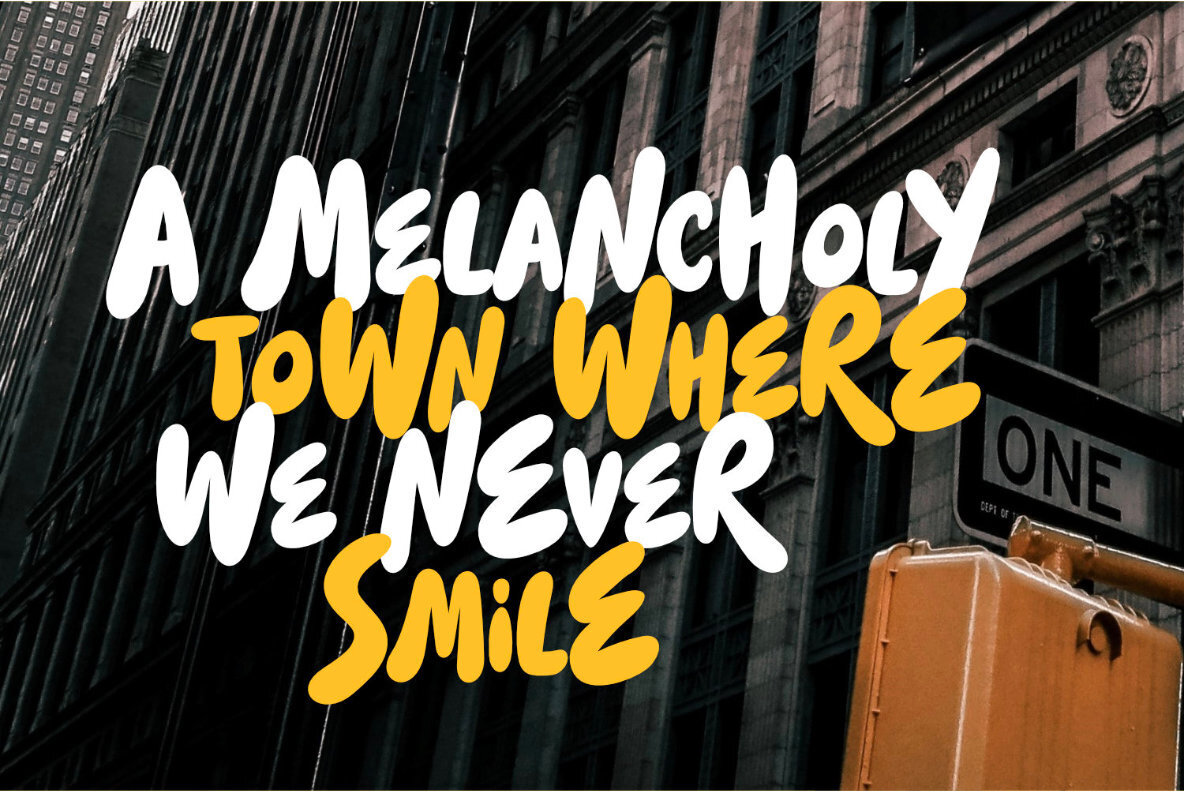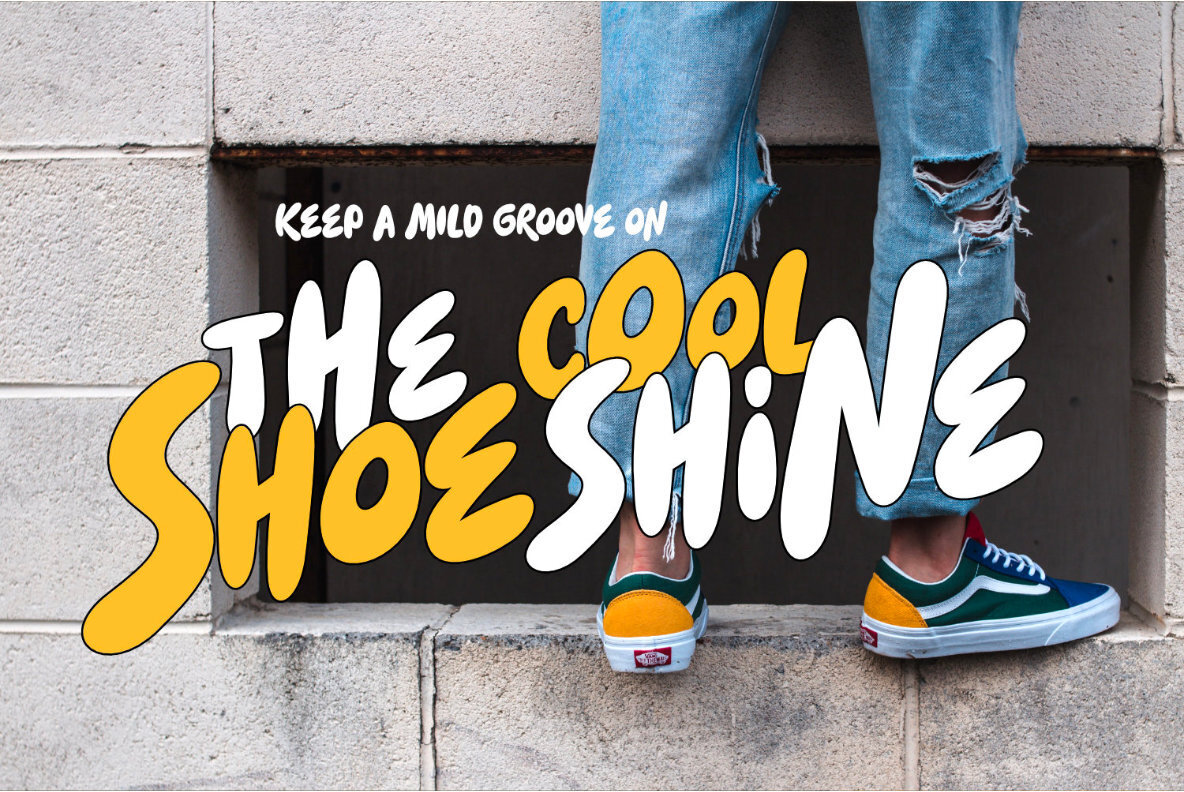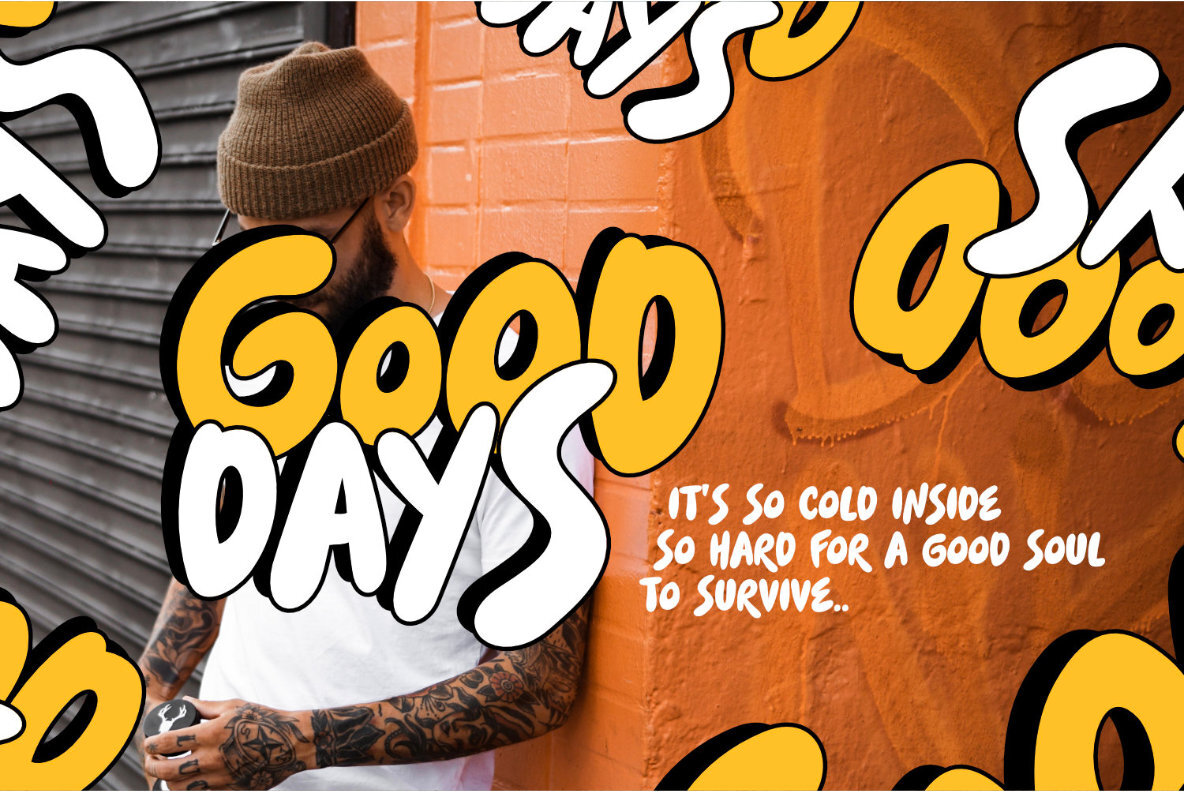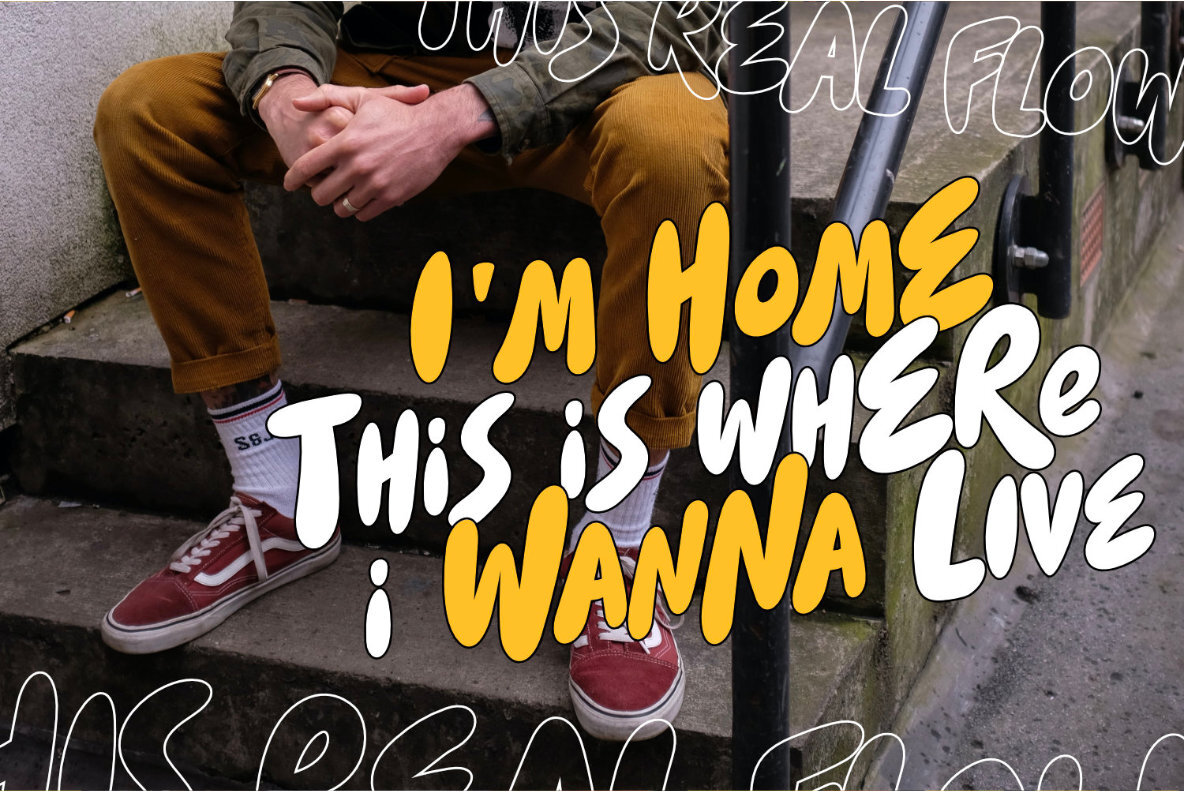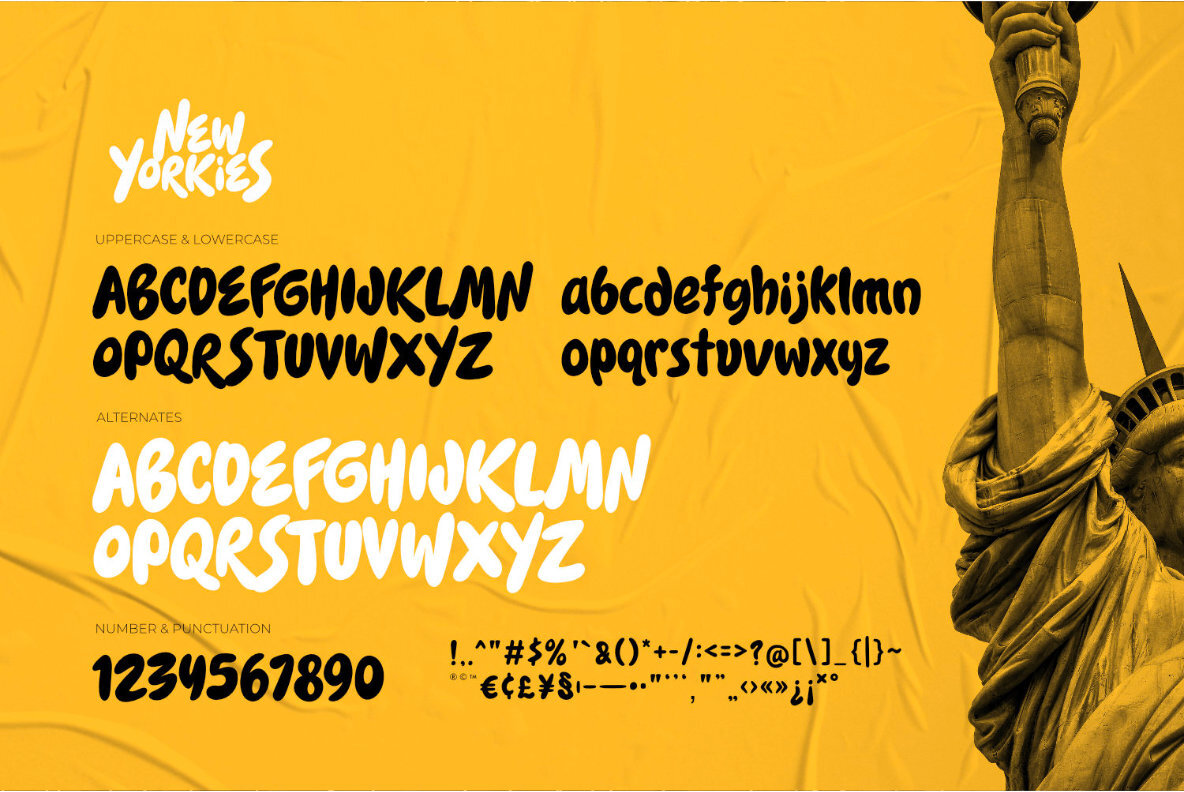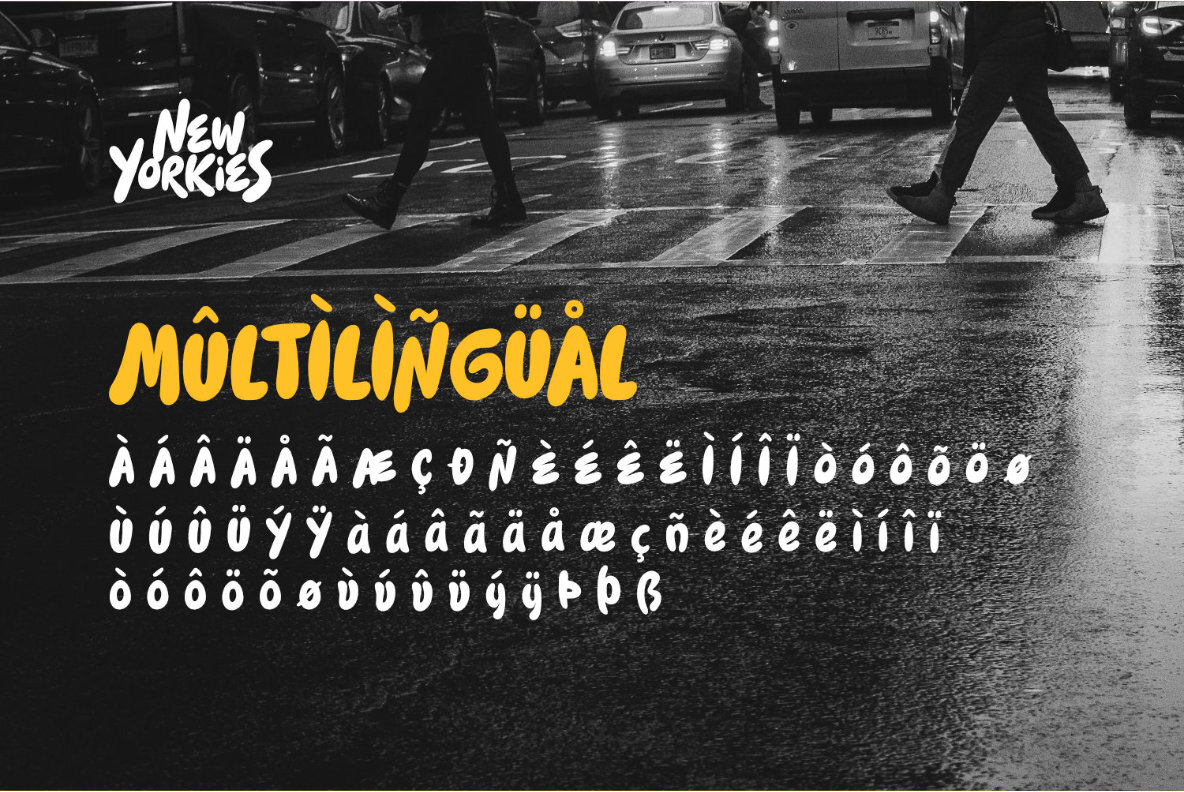
Say hello to New Yorkies, the perfect font to add a touch of youthful energy to your designs. This handwritten bubble font is inspired by the fashion street style, with spontaneous curves that create an artful and expressive look.
New Yorkies is all about energy and spirit. Its cheerful and vibrant character is perfect for streetwear brands, magazine layouts, fashion designs, and quotes. Use it to create stylish text overlays on any background image and make a bold statement with your designs.
What sets New Yorkies apart from other handwritten fonts is its unique bubble style. The curves and loops give the letters a playful and modern feel, while the handwritten look adds a personal touch to your designs.
This font is also incredibly versatile. Whether you're designing for a fashion brand, a music festival, or a lifestyle blog, New Yorkies can adapt to any style and add a touch of creativity and fun to your designs.
One of the best things about New Yorkies is how easy it is to read. Unlike other handwritten fonts that can be difficult to decipher, New Yorkies maintains a high level of legibility while still retaining its artistic and expressive character.
Overall, New Yorkies is a font that is sure to impress. Its youthful and energetic spirit, unique bubble style, and versatility make it the perfect choice for anyone who wants to create designs that stand out from the crowd.